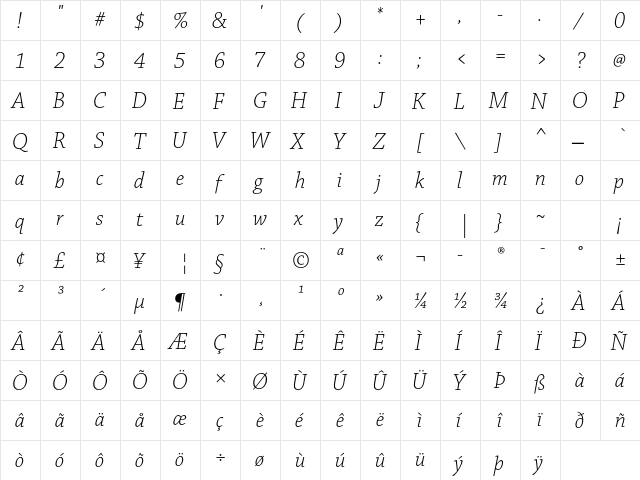
Chaparral Pro Light Italic Subhead
| Designer | Carol Twombly |
Design Context for Chaparral Pro Typeface
Chaparral Pro offers clean, dependable letterforms without strong stylistic allegiance, making it a practical choice for designers who need flexibility. The slanted form adds forward momentum and visual energy. The delicate stroke weight brings airiness and refinement to layouts.
Pro Tip: Use Chaparral Pro for emphasis, pull quotes, and subheadings where its slanted energy can add rhythm to the layout.